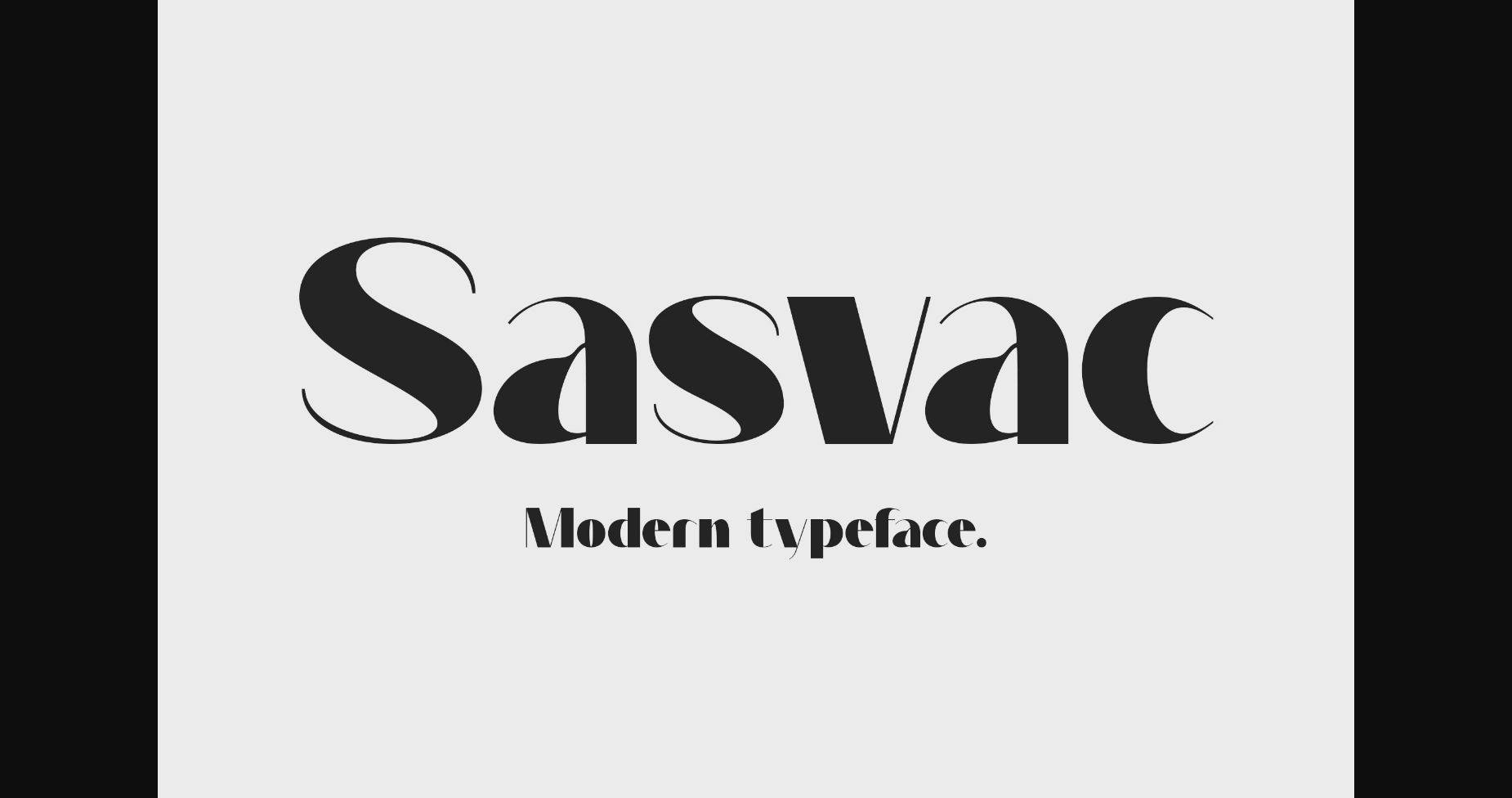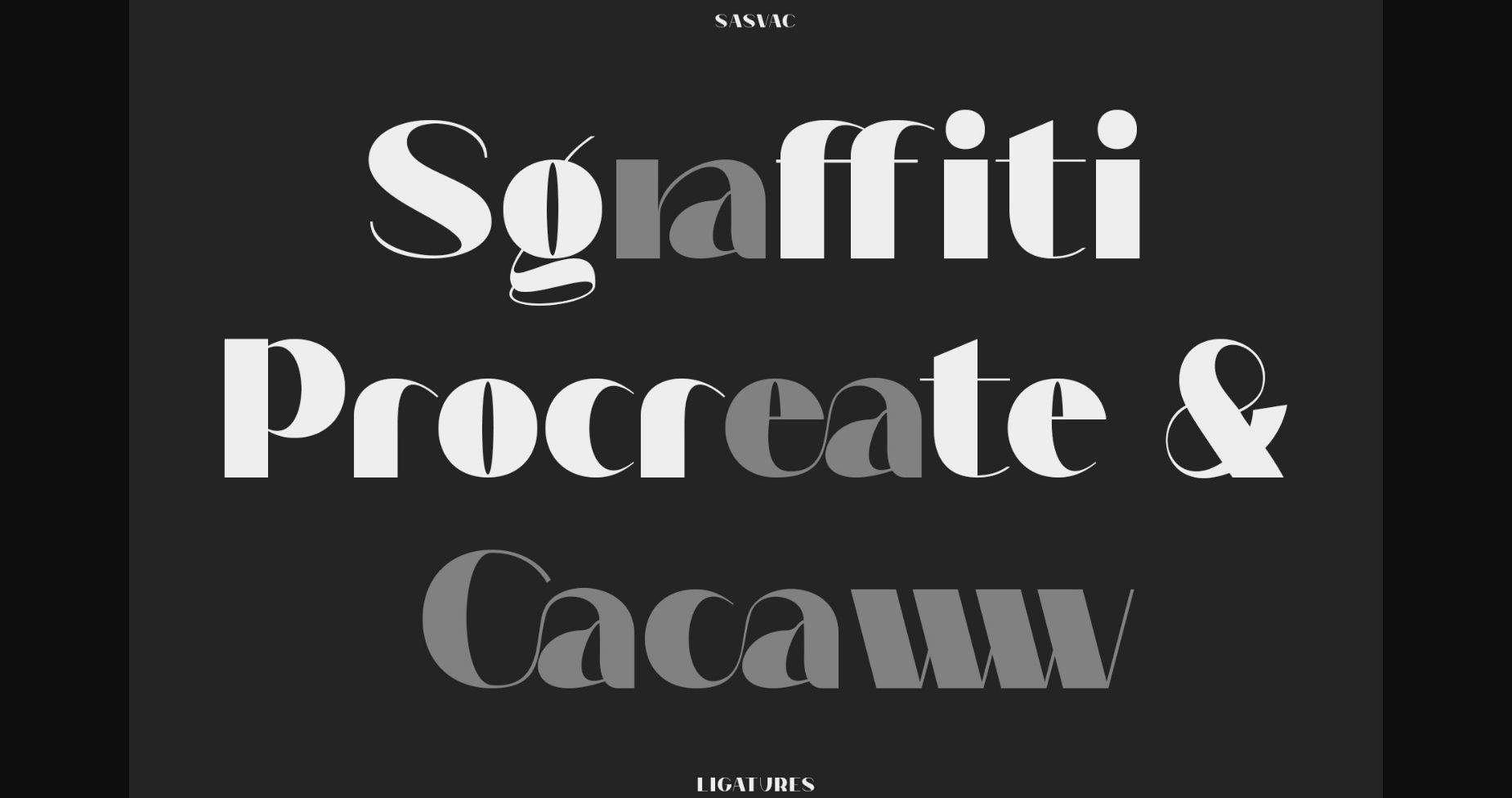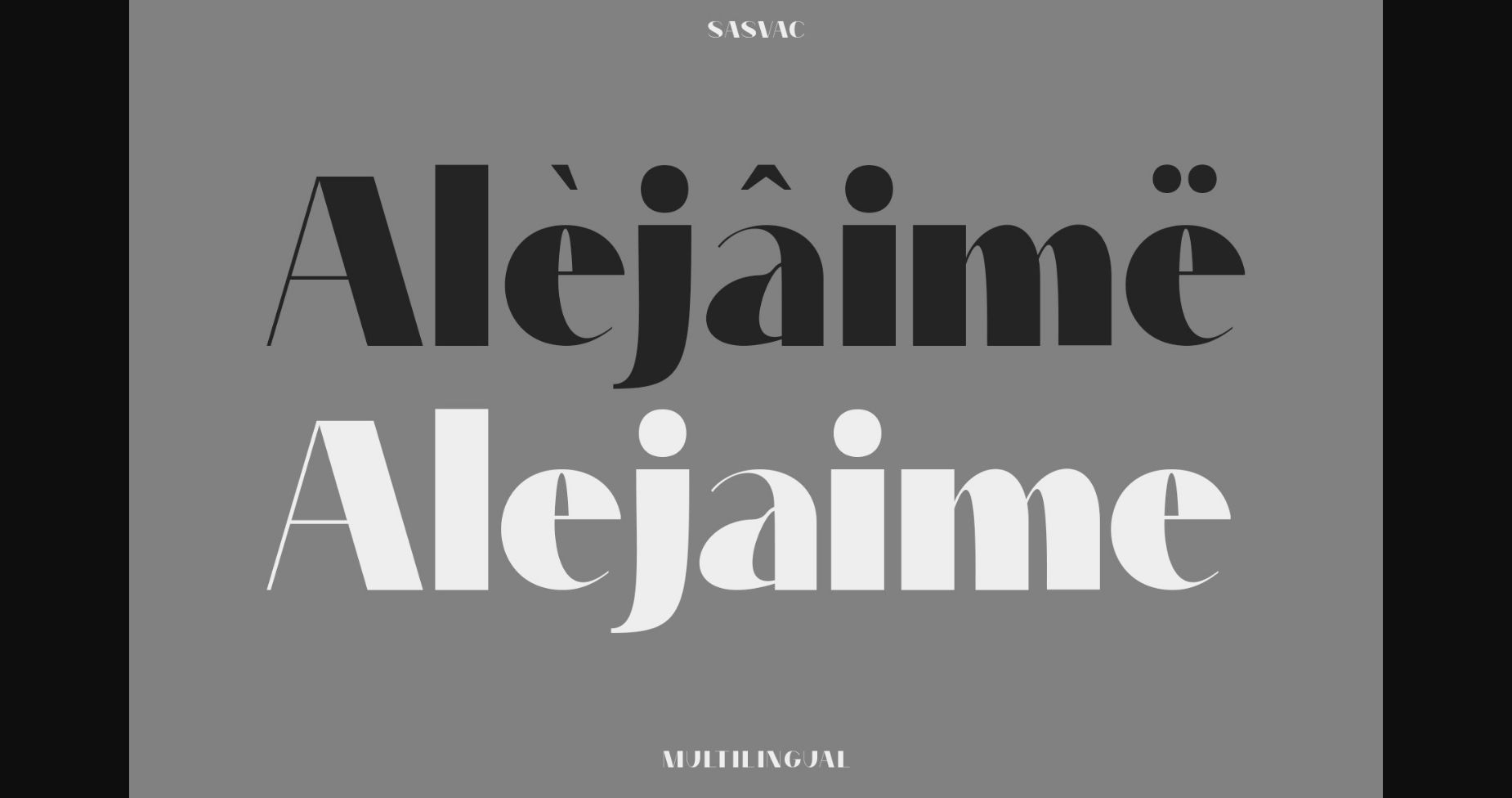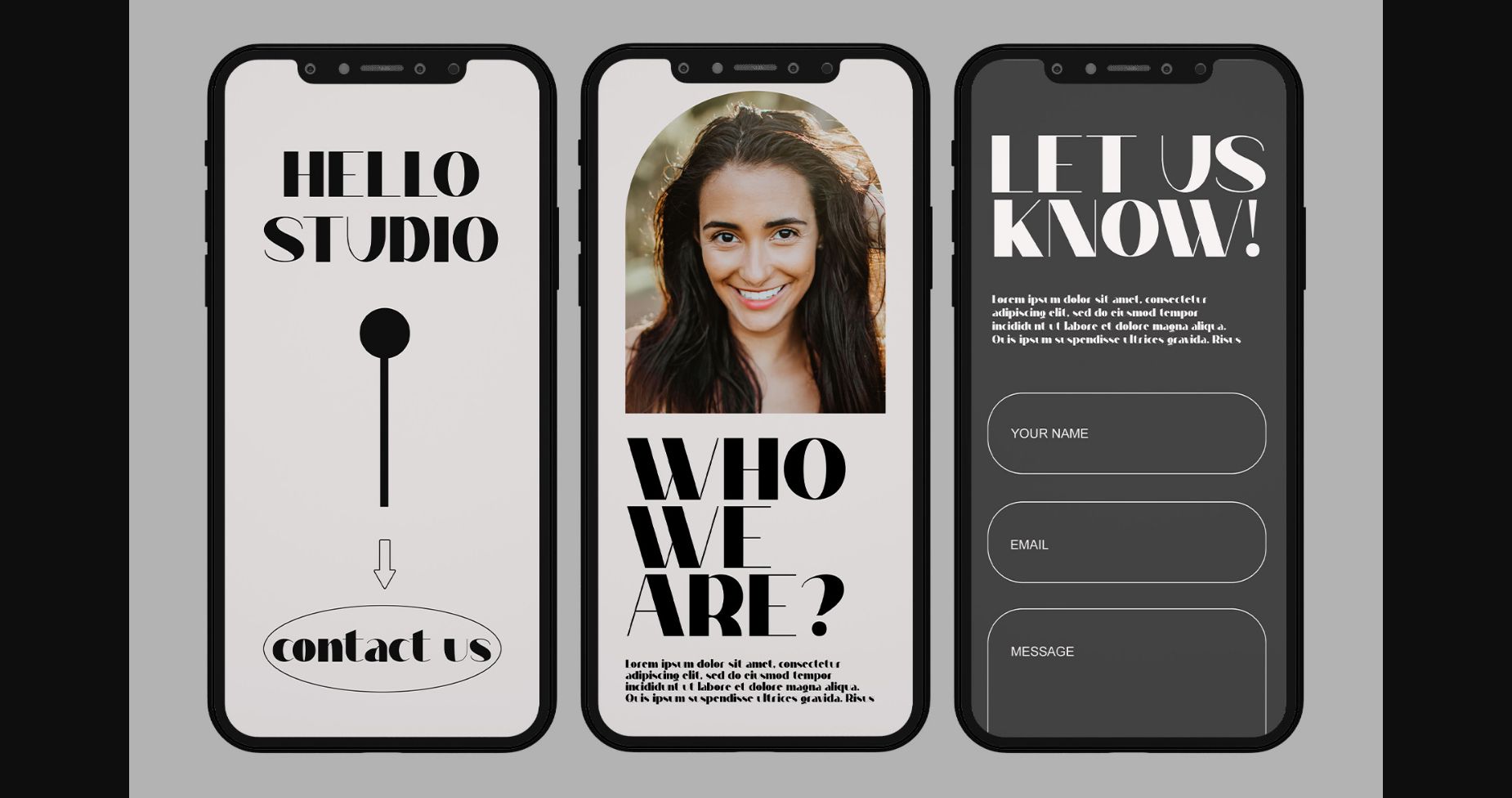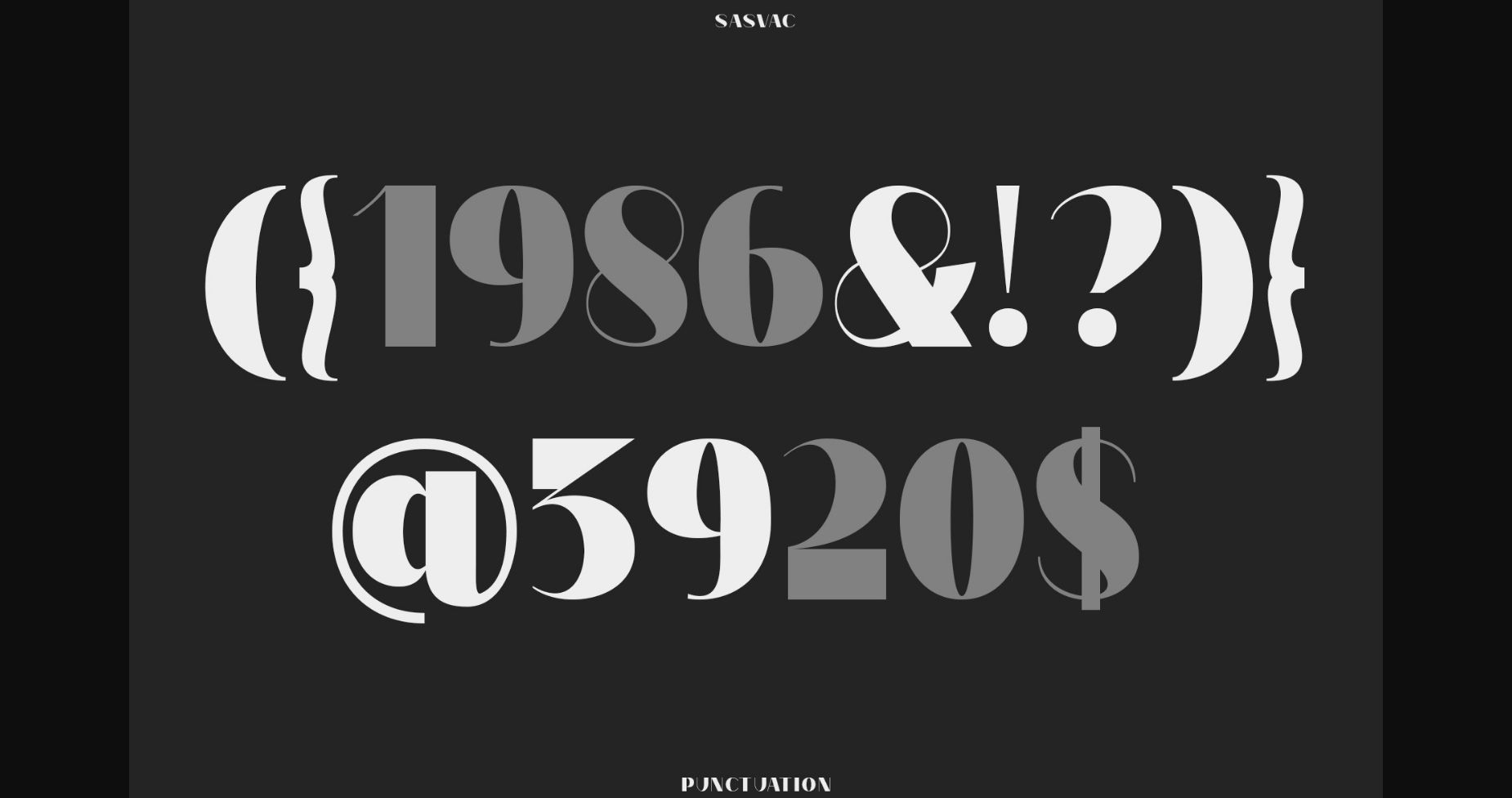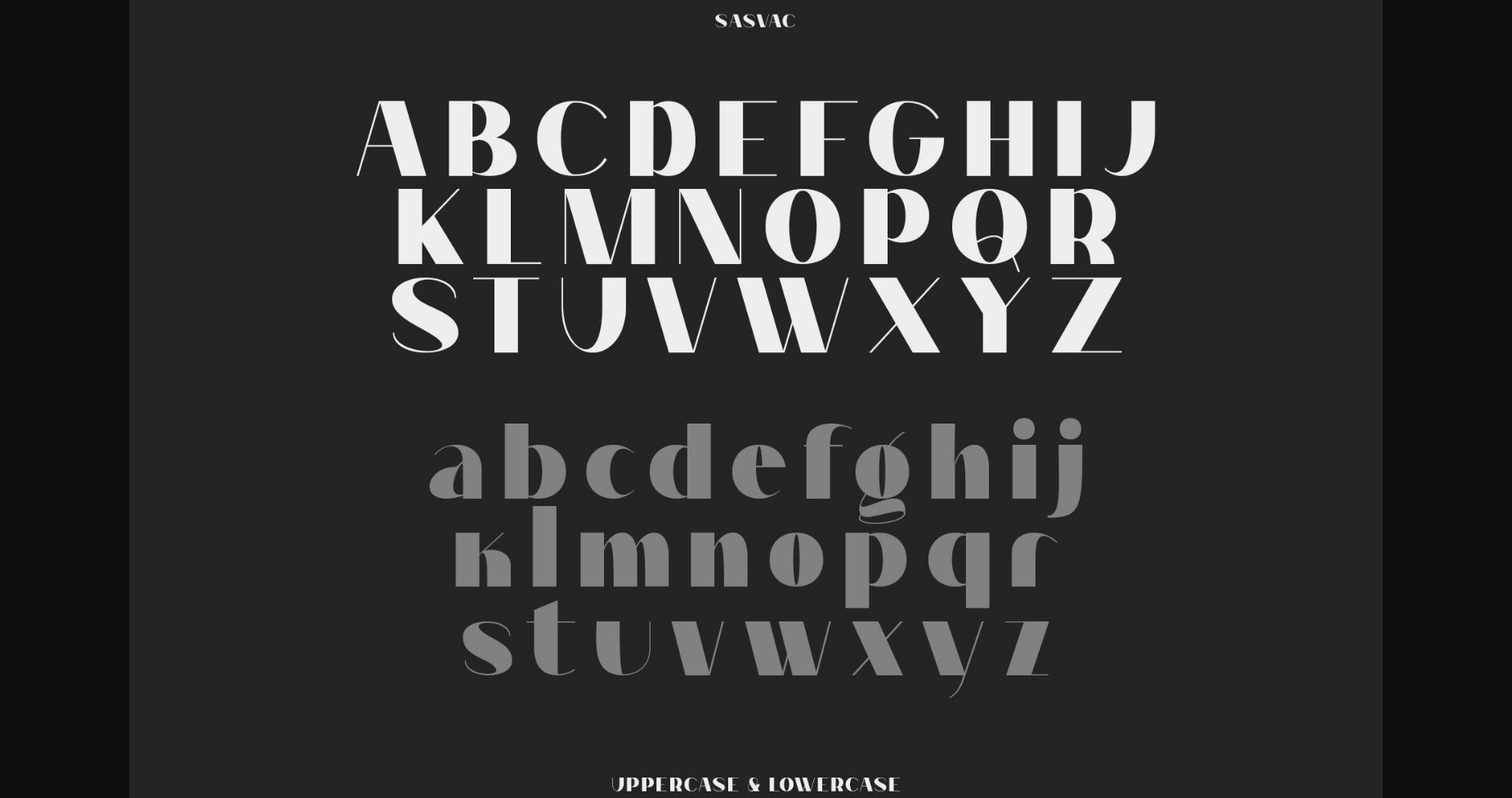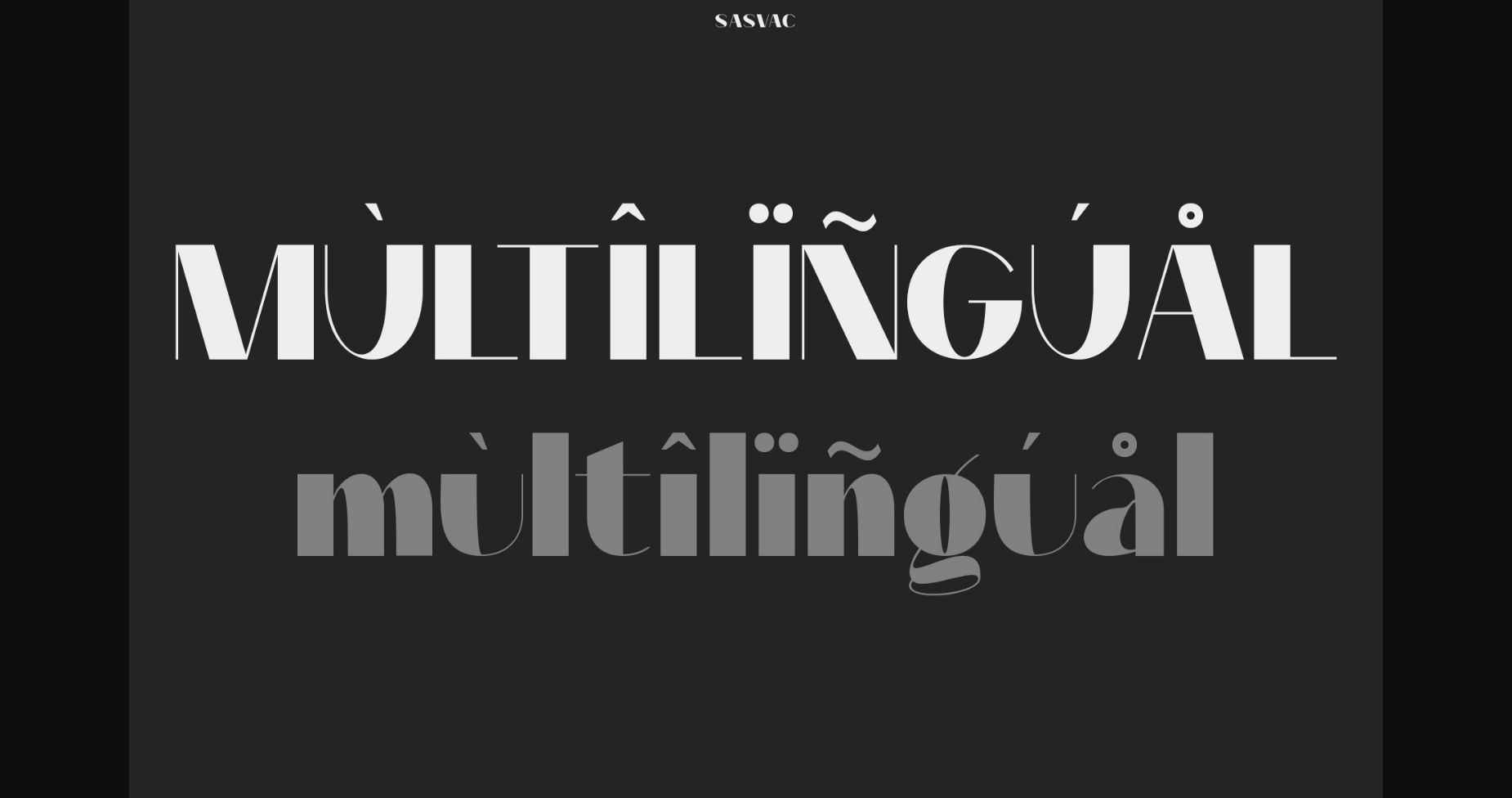
About Sasvac Font
Sasvac is an modern sans serif font that will bring your projects a touch of luxury and style. It’s the perfect match for logotypes, branding, wedding monograms and invitations, blog headlines, and much more.